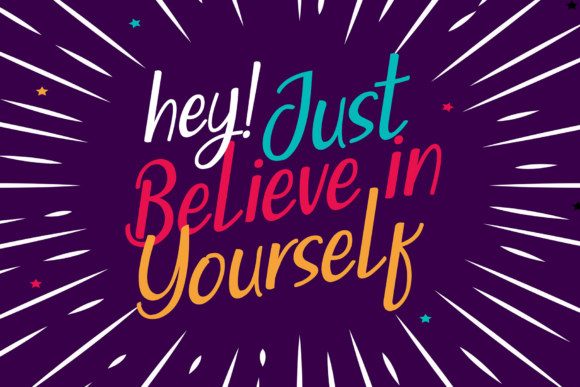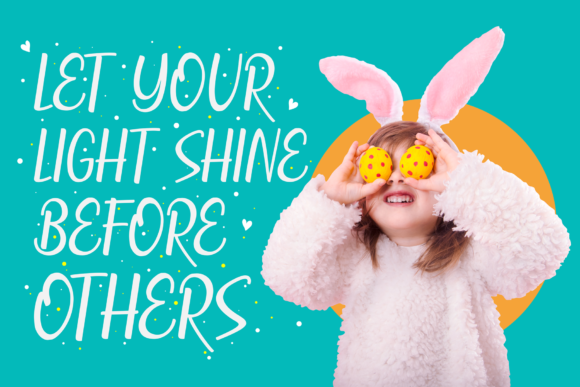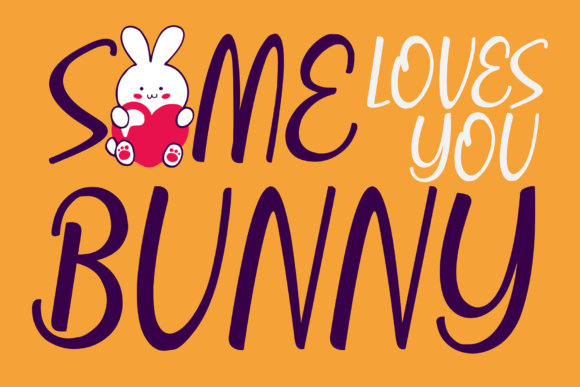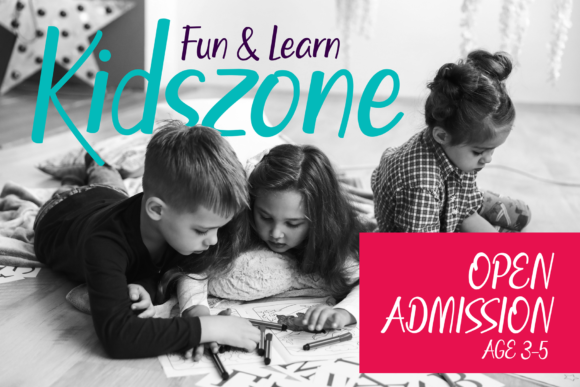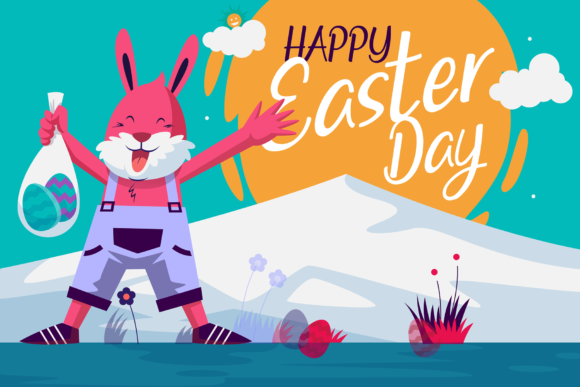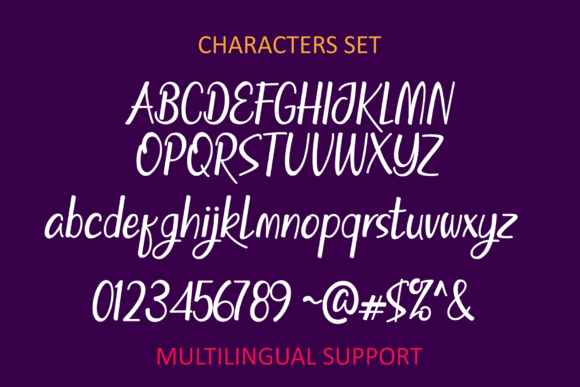
The Perfect Match for Whimsical Designs
As designers, we’ve all been there – staring at a blank canvas, desperately seeking the perfect font to bring our vision to life. For me, it was a childhood memory of a friend’s birthday party, where a colorful banner with oversized, playful letters caught my eye. That moment sparked an idea – to create a font that captures the essence of childhood wonder.
Enter Bunny Hoops Font, a delightful display font that embodies the perfect blend of playfulness and authenticity. Designed to bring joy to children’s activities and school projects, this chunky lettered font is the perfect addition to any design. By incorporating Bunny Hoops Font into your designs, you’ll notice a significant boost in visual appeal, making your creations come alive in the most magical way.
Bunny Hoops Font Key Features
- Character Count: This whimsical font features 250+ characters, including uppercase and lowercase letters, numerals, punctuation marks, and special characters, making it ideal for creative projects.
- Unique Characteristics: This font boasts a playful, hand-drawn design with a mix of cursive and script elements, perfect for adding a touch of whimsy to your designs.
- Font Weight and Style: Bunny Hoops Font comes in a single weight and style, with a friendly and approachable feel that’s perfect for creating a wide range of designs, from invitations to social media graphics.
Bunny Hoops Font Review
I recently had the chance to work with the Bunny Hoops Font, and I must say it’s a mixed bag. On the one hand, here are some things that work well: ✨
- It’s playful and whimsical, perfect for designs that need a touch of cuteness.
- The font is highly customizable, with a wide range of size and color options.
- It’s great for creating eye-catching headings and titles.
However, there are some limitations that might make it less ideal for certain projects: ⚠️
- The font can be a bit too cursive for some tastes, which might make it harder to read for those with certain visual impairments.
- It’s not the most versatile font, and it might not be the best choice for more serious or formal designs.
- The font family is not particularly large, which might limit its use in certain contexts.
Overall, I think the Bunny Hoops Font is a great choice for designs that need a playful touch, but it’s not the best fit for every project. With a bit of creativity and careful selection, it can be a valuable addition to any designer’s toolkit.
Bunny Hoops Font is ideal for:
- Food labels and packaging.
- Whimsical and playful designs.
For the best results, use Bunny Hoops Font in conjunction with bright colors and playful graphics.